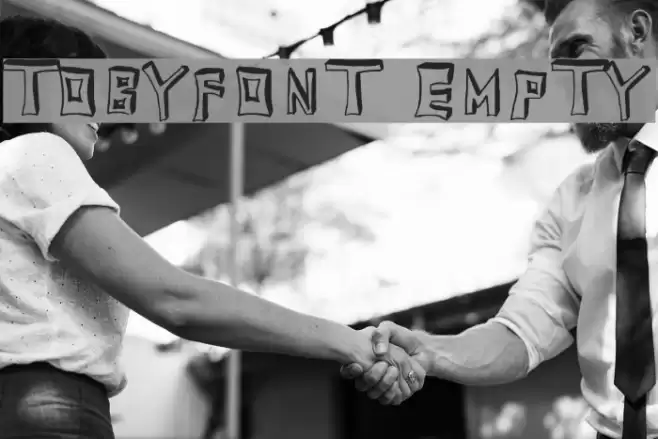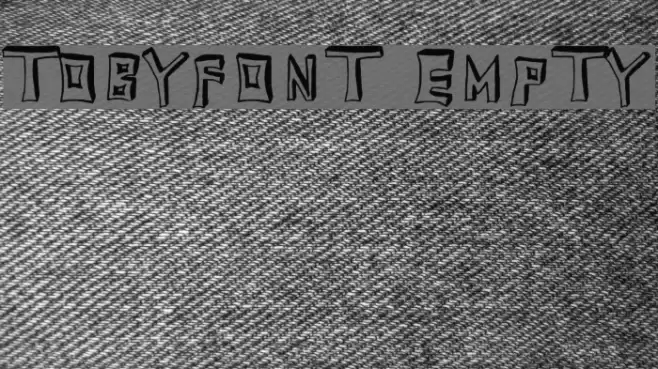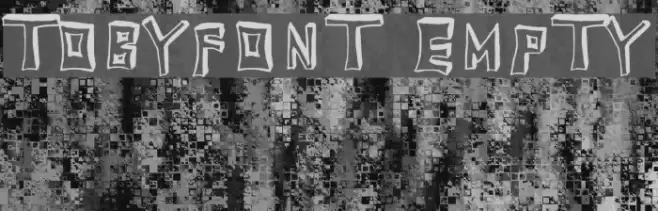
TobyFont Empty Font
TobyFont Empty Description
This font features a bold, hand-drawn style with a playful and artistic flair. Each character is uniquely crafted with irregular edges and varying line thickness, giving it a dynamic and energetic appearance. The uppercase and lowercase letters maintain a consistent style, while the numbers and special characters add to its quirky charm. The font's design is reminiscent of graffiti or street art, making it ideal for projects that require a bold and unconventional look. Its distinct personality makes it stand out, perfect for creative and artistic applications.
A bold, hand-drawn font with a playful and artistic style from Crazy fonts.
- Proposed Projects: Ideal for posters, album covers, street art designs, and creative branding projects.